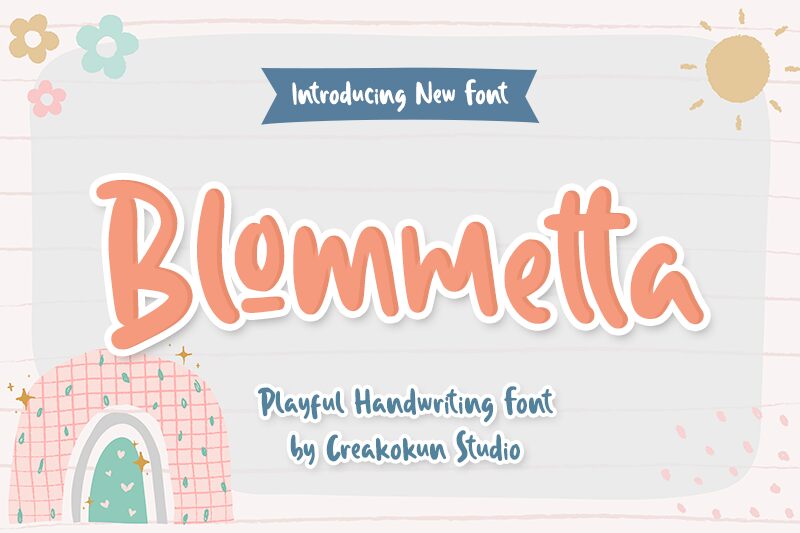
Blommetta
Introducing Blommetta, a bold handwritten font created by M Arif Dwi Prasetyo & Eko Nurcahyo. This font is perfect for creating eye-catching designs, such as posters, logos or titles for magazines and websites. It's also great for adding a unique touch to any creative project!